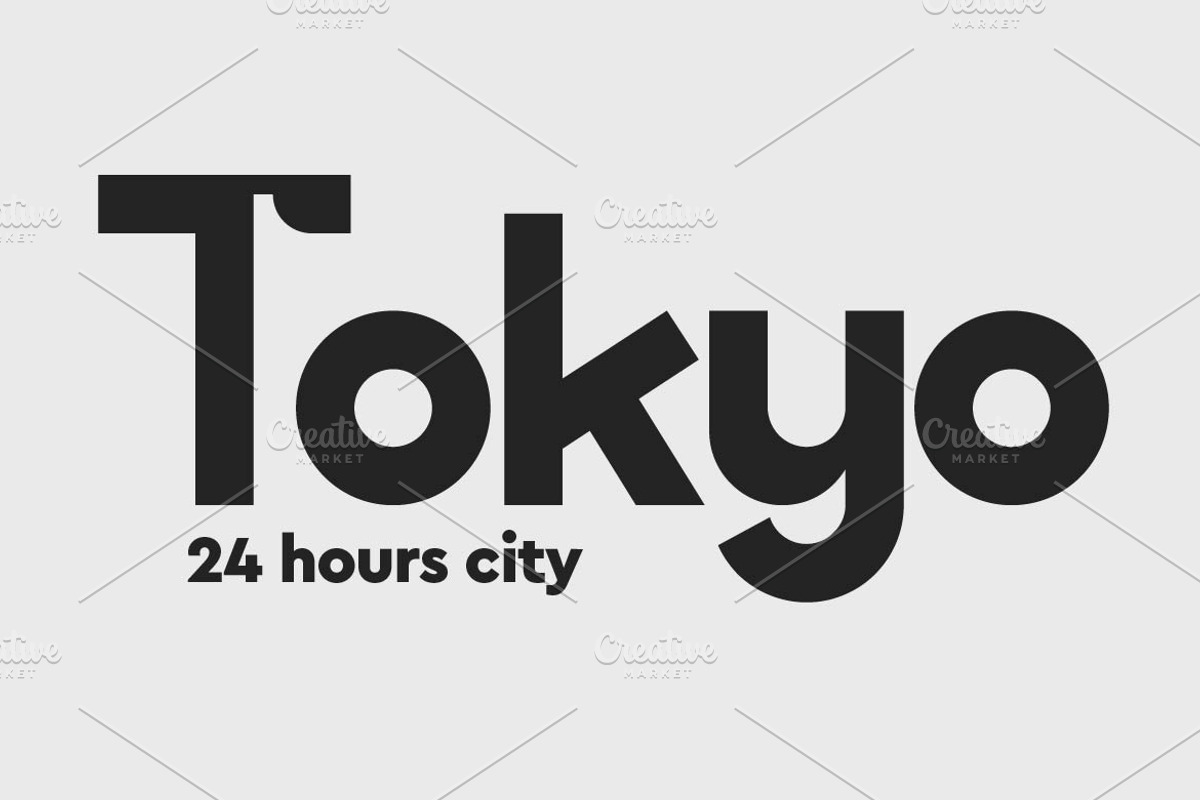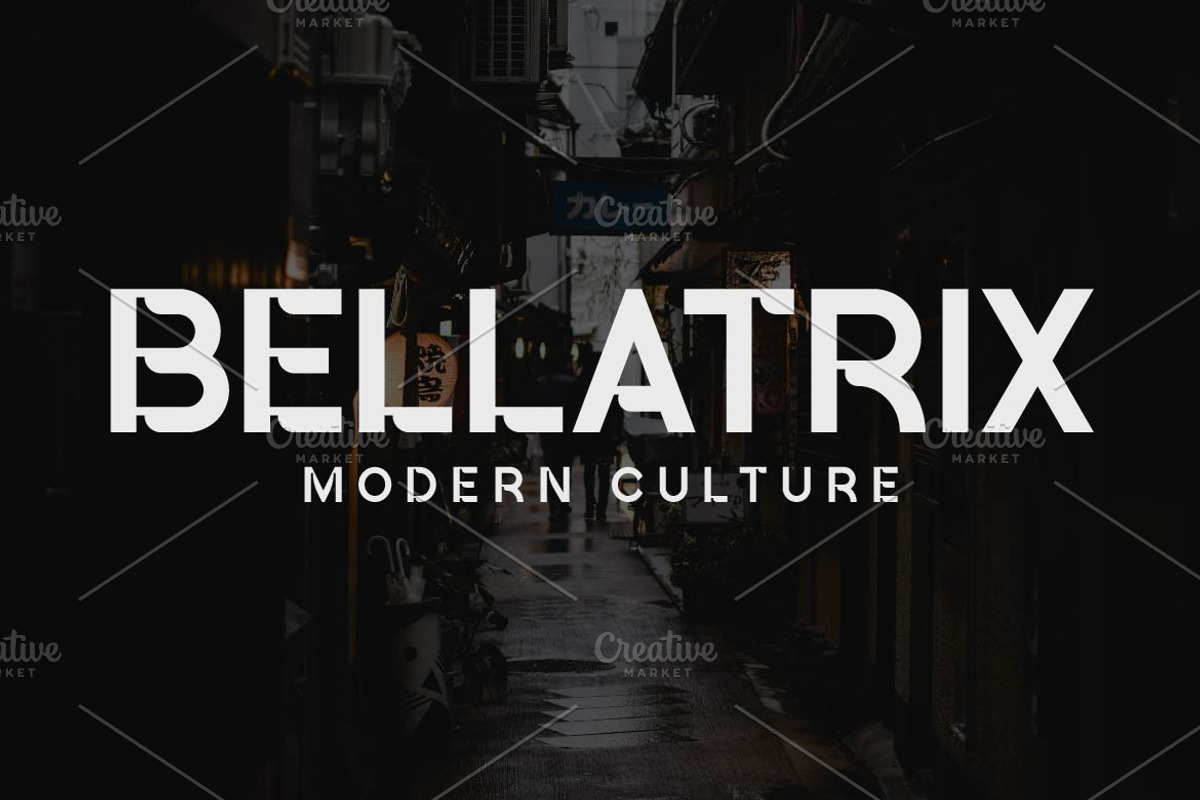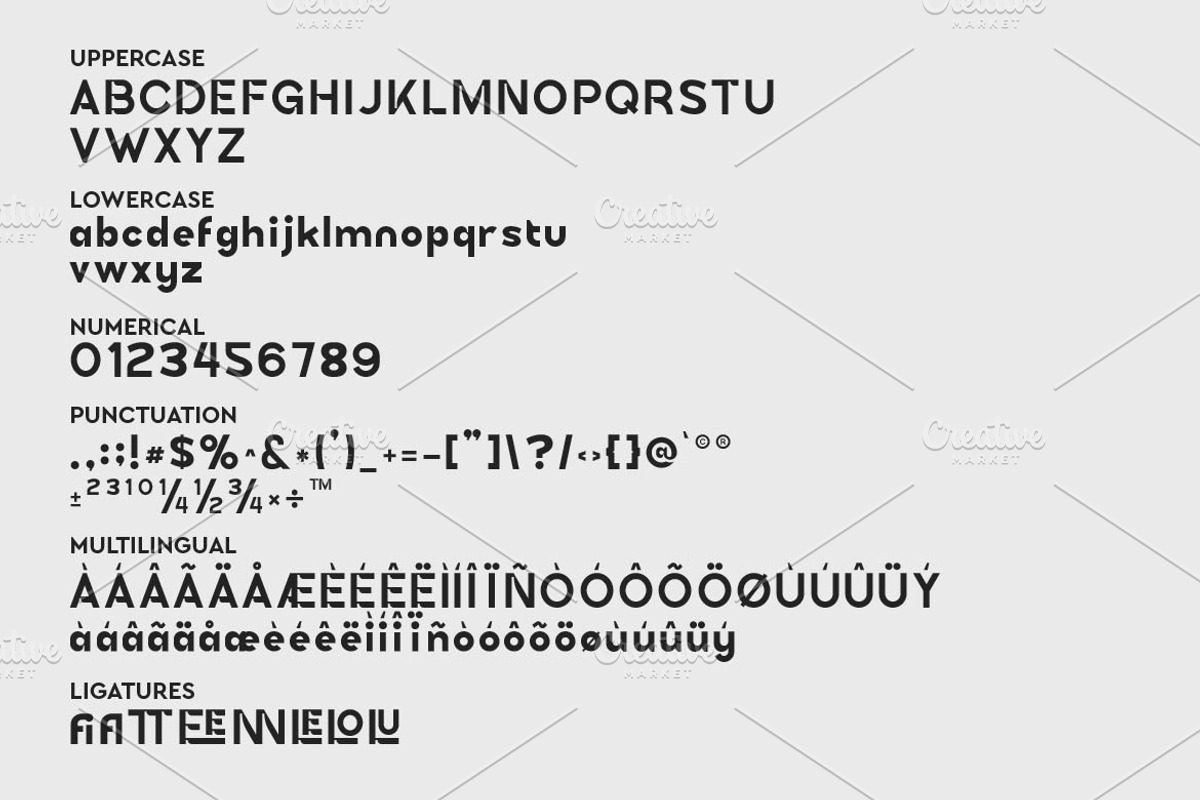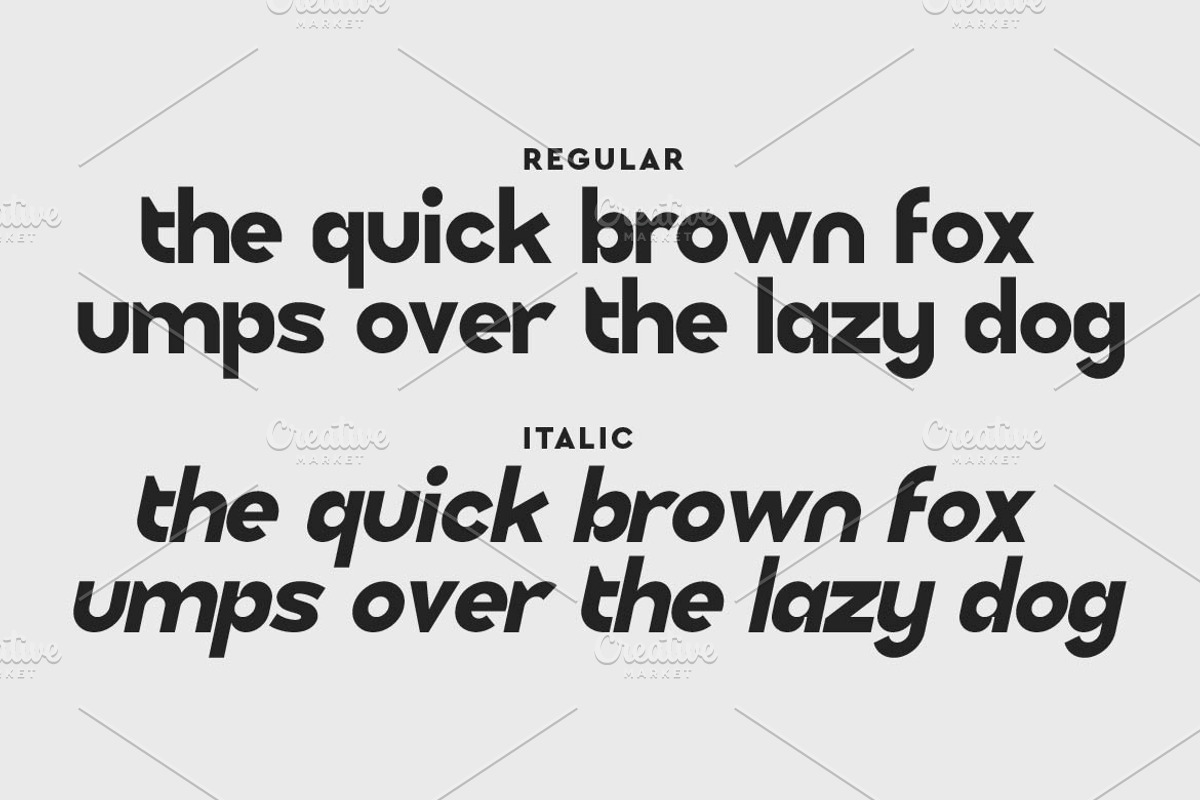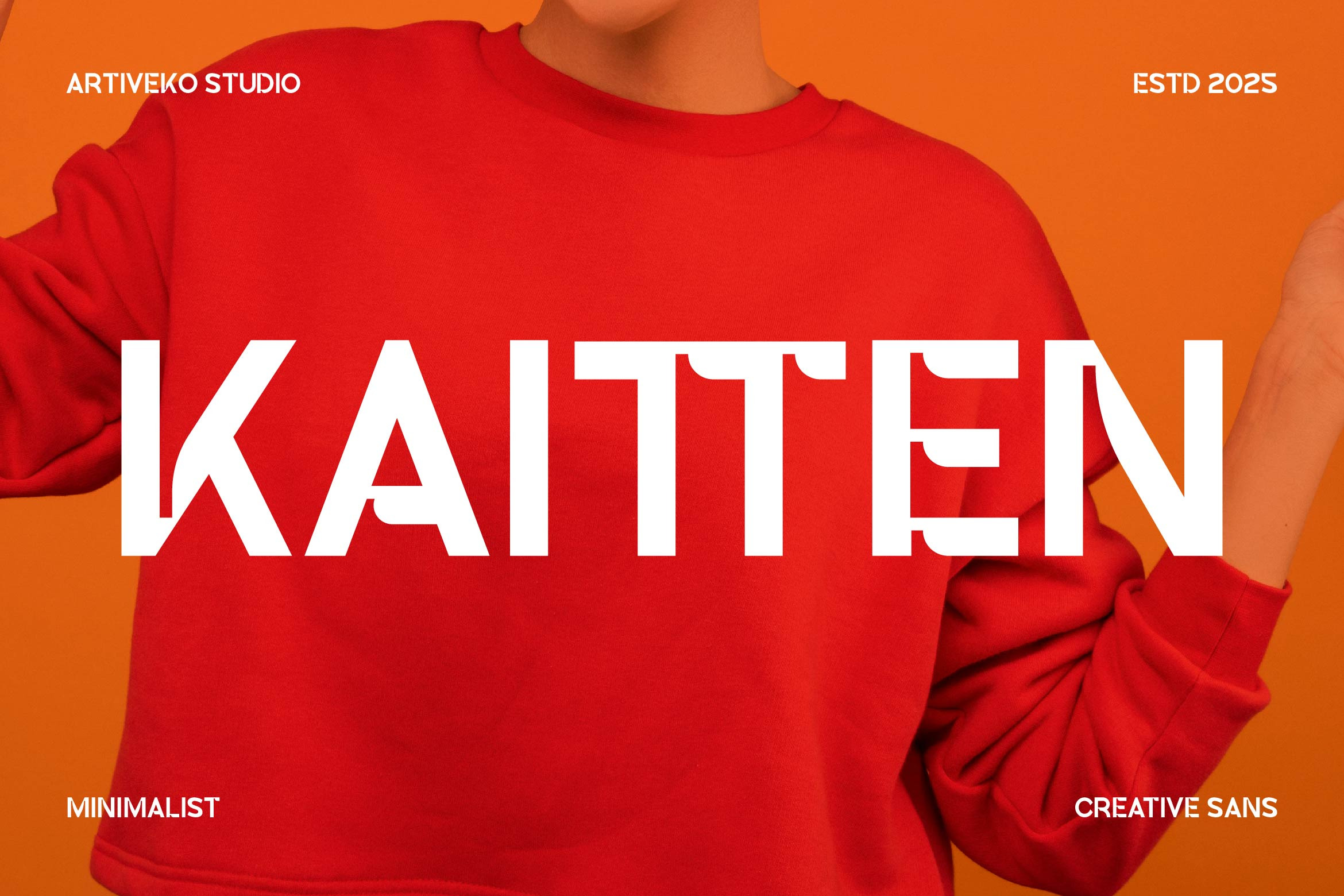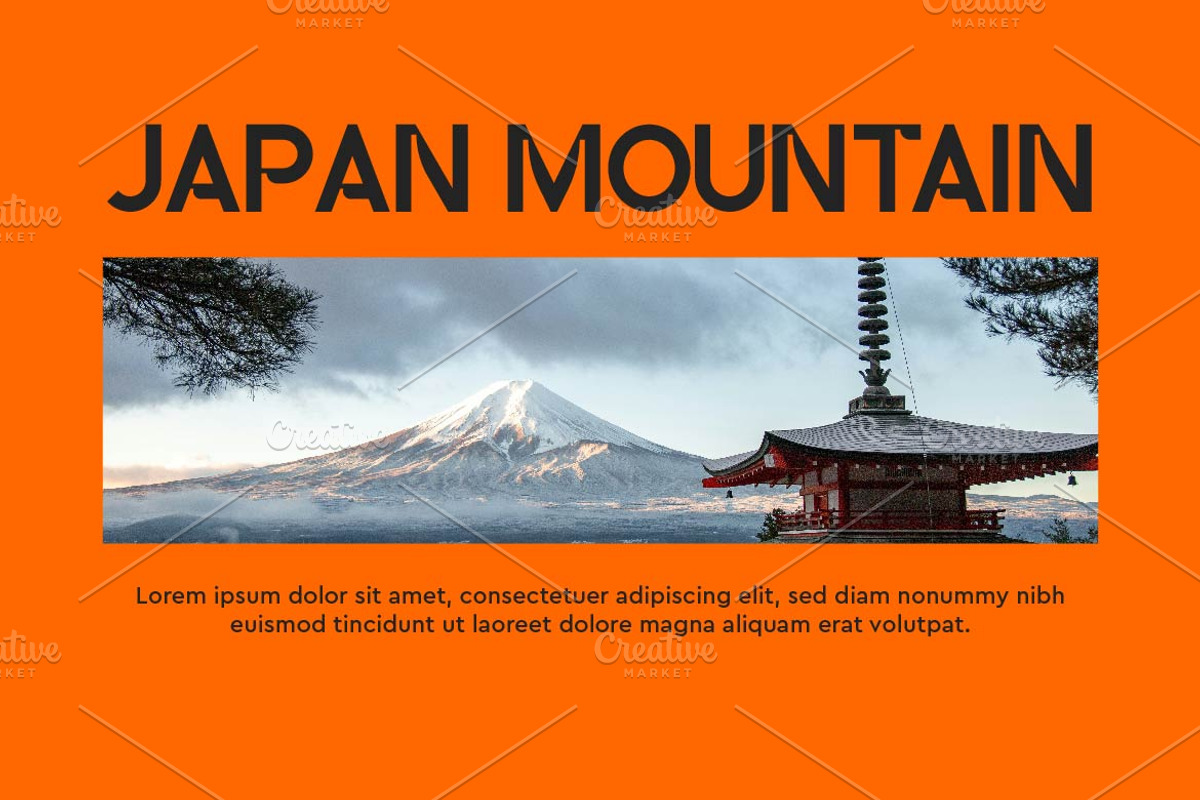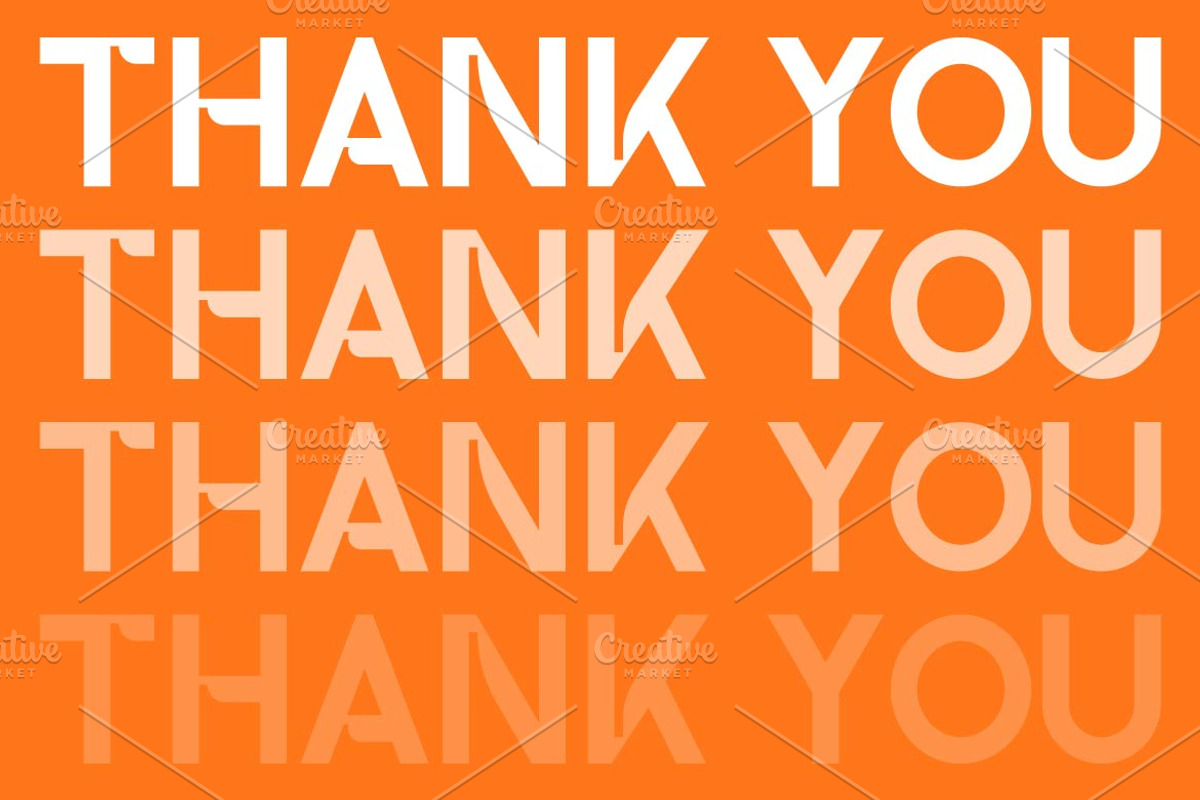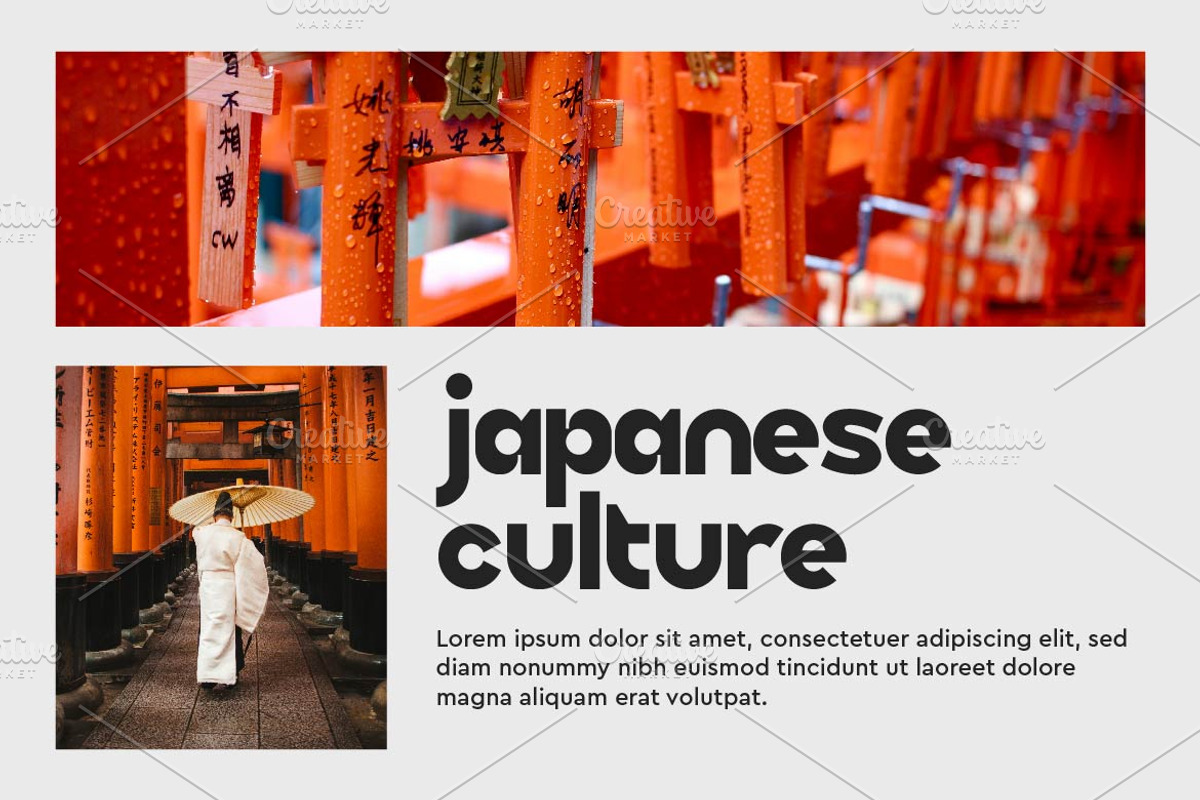
Kaitten Modern Sans Font
Kaitten is a sleek modern sans serif font by Iwan Alwan, designed with clean lines and balanced proportions that offer a contemporary and professional look. Perfect for branding, web design, editorial layouts, and corporate materials, Kaitten combines simplicity with sophistication. With multilingual support, ligatures, and alternates, Kaitten is versatile and elegant, making it an excellent choice for projects that demand clarity and a polished modern aesthetic.